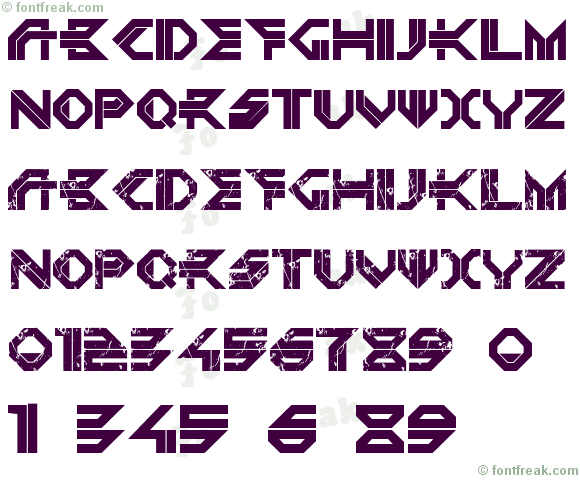
DEPLETED URANIUM Regular
DEPLETED URANIUM Regular, designed by Krunoslav Sokic, is a striking display font that captures attention with its unique aesthetic. This font stands out in the realm of decorative typefaces, characterized by its bold and geometric forms. The strokes exhibit a varying weight, creating a sense of depth and dynamism that complements its distinctive visual identity. The contrast between thick and thin lines adds an engaging rhythm, while the spacing is carefully crafted to maintain legibility, even at larger sizes.
This font is particularly well-suited for a range of creative applications. It excels in contexts where visual impact is paramount, such as movie posters, where it can convey a sense of urgency or drama. Additionally, DEPLETED URANIUM Regular is a fantastic choice for branding projects, particularly for tech startups or modern businesses seeking a contemporary edge. Its bold design makes it ideal for eye-catching restaurant menus, ensuring that dish names stand out and entice diners. Graphic designers will also find it useful for creating merchandise, such as t-shirts or promotional materials, where a unique typeface can enhance brand identity.
What sets DEPLETED URANIUM Regular apart is its ability to balance readability with an avant-garde flair. This font not only serves functional purposes but also embodies a creative spirit that resonates with modern design trends. For those interested in making a bold impression, the DEPLETED URANIUM Regular font free download is an excellent choice that won’t go unnoticed.